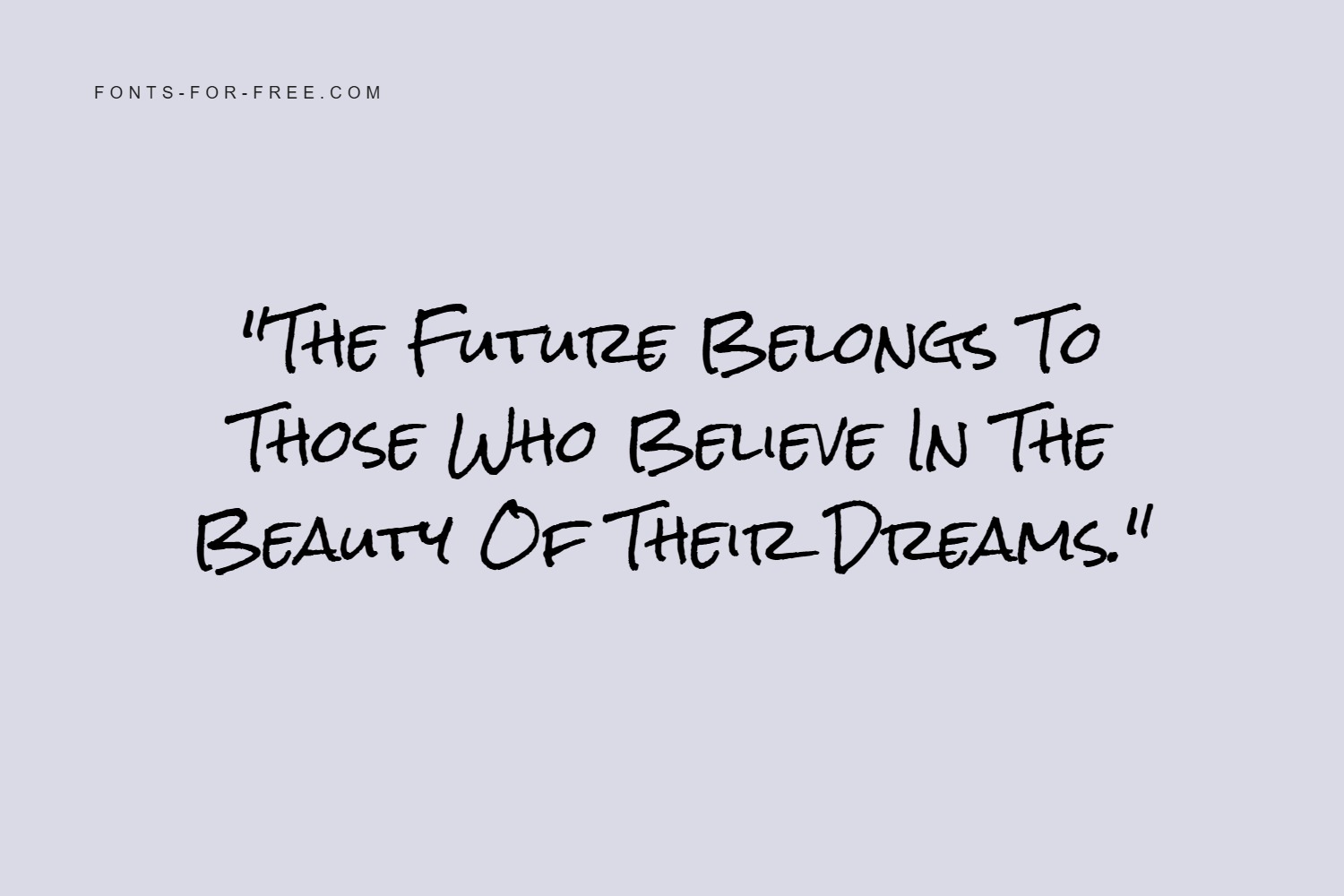
Choosing a display font often comes down to one question: do you want your design to feel neat and controlled, or personal and full of character? Rock Salt is made for the second option—a handwritten look that can make a layout feel more natural, but only if the context supports it.
Rock Salt is the right choice when you want a casual handwritten style to deliver a message. This font works especially well for short titles, poster headlines, album or playlist covers, street-style visuals, café boards, creative merchandise, DIY packaging, social media quotes, and campaign graphics. The irregular strokes and organic rhythm help a brand feel more “real,” like something quickly written rather than printed.
Using this font is not recommended when clarity and consistency are critical—such as in long paragraphs, small-sized UI text, dense menus, corporate communication, luxury branding, or designs that require a clean grid and a formal tone. In those contexts, the rough texture and uneven letterforms can reduce readability and make the overall identity feel less elegant than expected.
Stylistically, Rock Salt sits between playful handwriting and raw, expressive marker lettering. It is more energetic and imperfect than neat everyday handwriting, less elegant than formal calligraphy, and far more organic than structured modern typography. If your design needs a friendly touch—slightly rough, spontaneous, and handmade—this font delivers that mood immediately.
If your decision is, “I want a display typeface that feels human, creative, and confident in its imperfections,” Rock Salt is the right pick. And with the SIL Open Font License (OFL), it is a flexible choice for both personal and commercial projects across print and digital use.